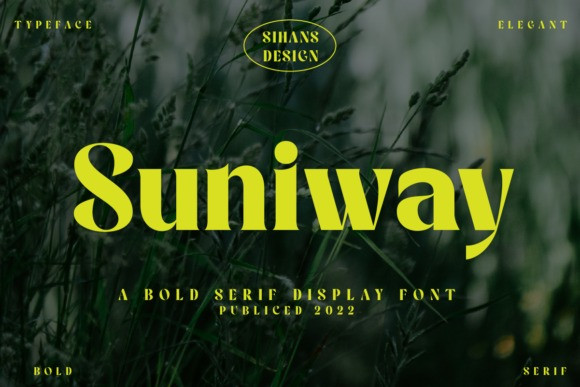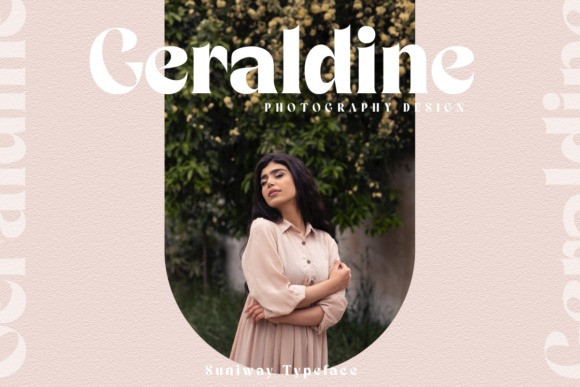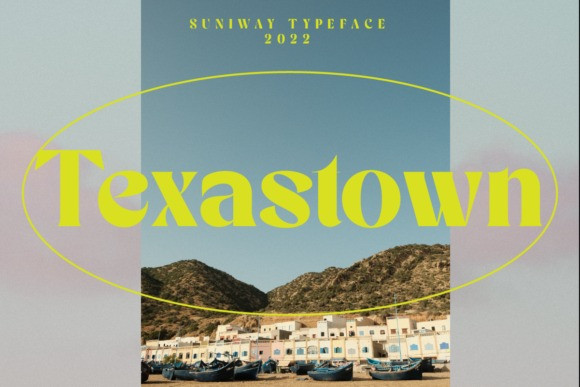
Suniway Font
Suniway is an elegant and classic serif font. Simple and easy to use, this font will be very beautiful if you mix it with your various craft designs.